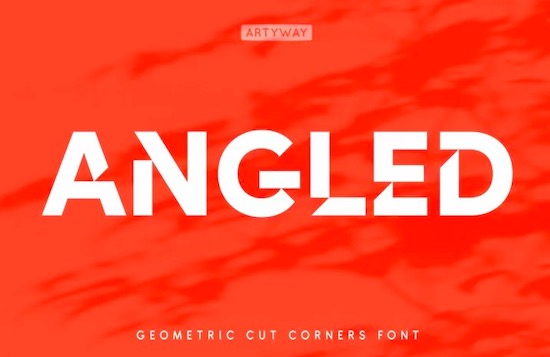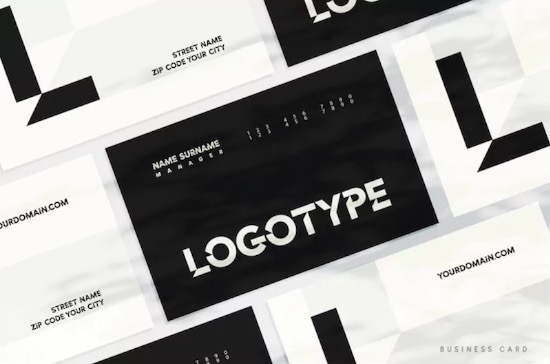
Angles font
Introducing Angles Logo font, a great fancy modern bold font that was designed and published by Artyway. This font was inspired by the present and elegant trends in slogan & logo typography for digital.
Angles Logo Display font
Using this Angles font
With Angles’ display style, it’s free perfect to use on gaming as well as futuristic designs, GUI, and hud.
Add this font to your most creative design ideas, the professional, or premium design projects, and notice how it makes them become a stand out product!